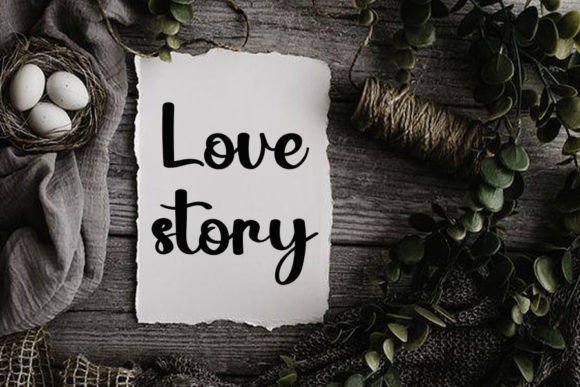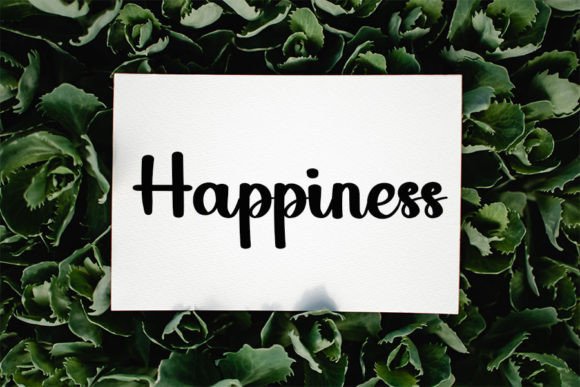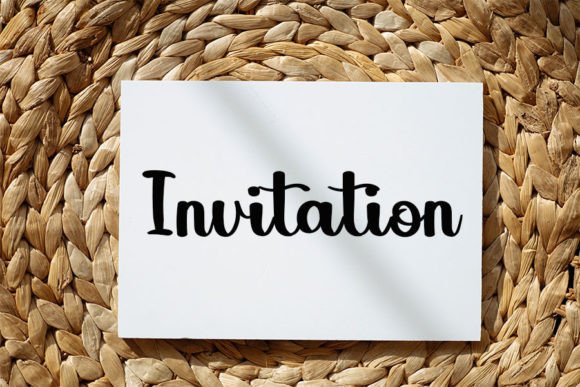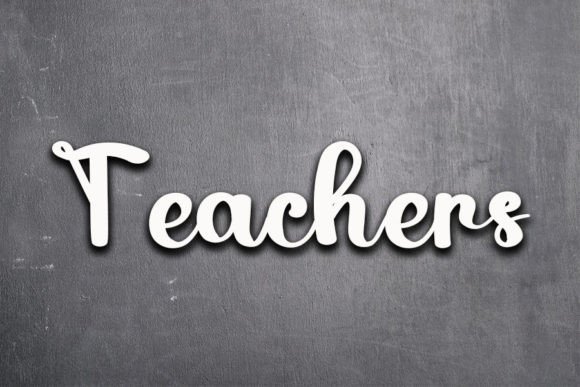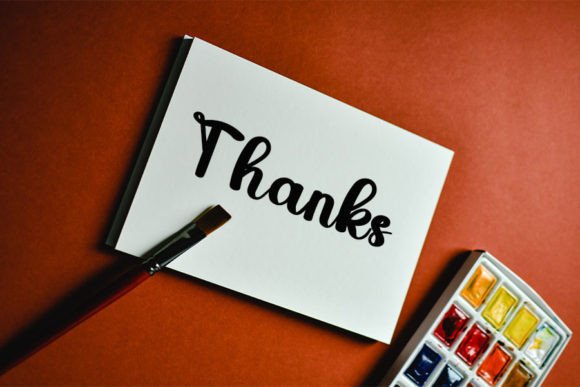
The Magical Blessing of Blessed Font: A Designer’s Delight
So, what makes Blessed Font so special? Let’s dive into the details.
- ✨ Elegant yet approachable: Blessed Font strikes the perfect balance between sophistication and playfulness.
- ✅ Clean and readable: The font’s clarity makes it perfect for body text, headings, and even social media posts.
- 💫 Quirky and unique: The subtle irregularities and flourishes add a touch of personality to any design.
- 🎨 Versatile: From logos and branding to crafty DIY projects, Blessed Font adapts seamlessly.
While Blessed Font is an excellent choice, it’s not without its minor quirks:
- 🤔 Limited character set: Some special characters and glyphs might be missing, so be sure to test the font with your specific text.
- ⚠️ Occasional kerning issues: As with any font, some manual kerning adjustments might be necessary for optimal results.
The Story Behind Blessed Font
While the true story behind Blessed Font remains a mystery, it’s easy to imagine a designer pouring their heart and soul into creating a font that embodies both elegance and playfulness. Perhaps a late-night coding session, fueled by coffee and creativity, led to the birth of this beautiful handwritten font.
| What type of projects is Blessed Font best suited for? | Blessed Font is perfect for logos, branding, social media posts, and crafty DIY projects. |
| Is Blessed Font suitable for body text? | Yes, Blessed Font is clean and readable, making it suitable for body text. |